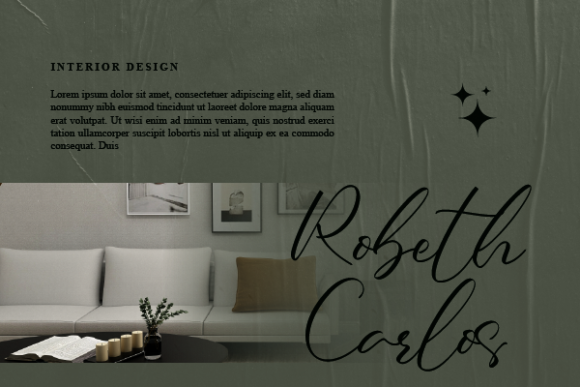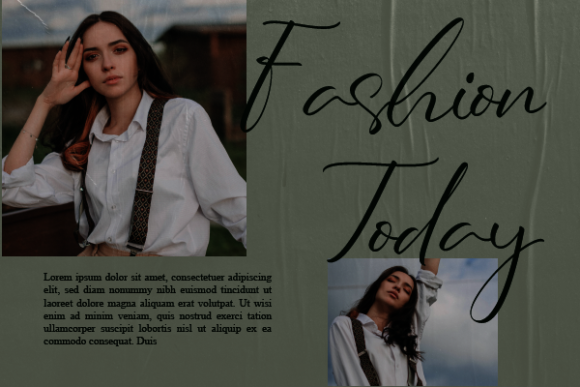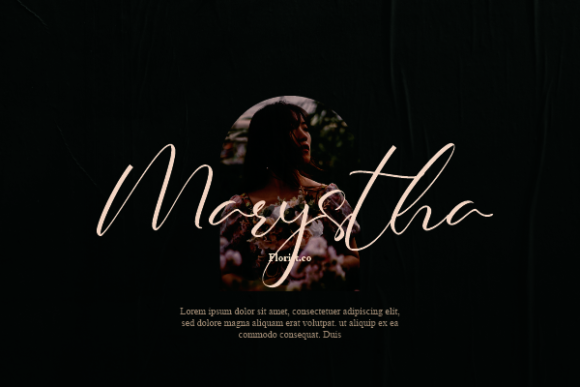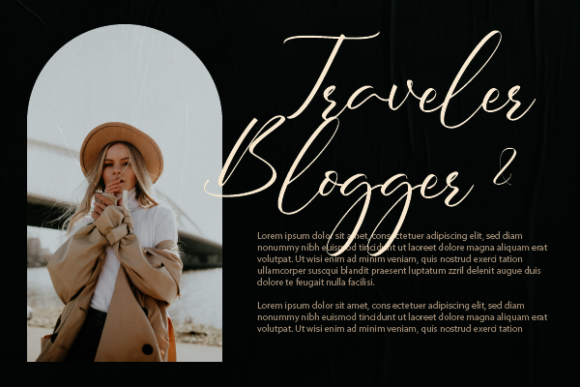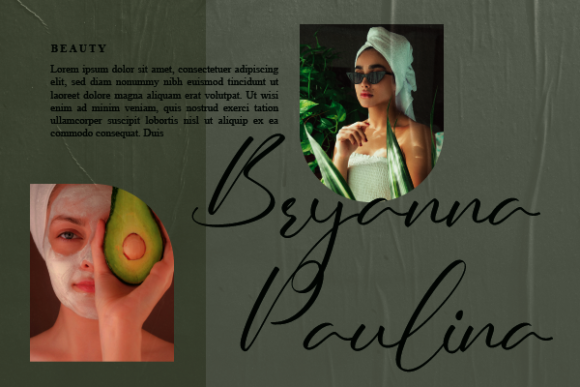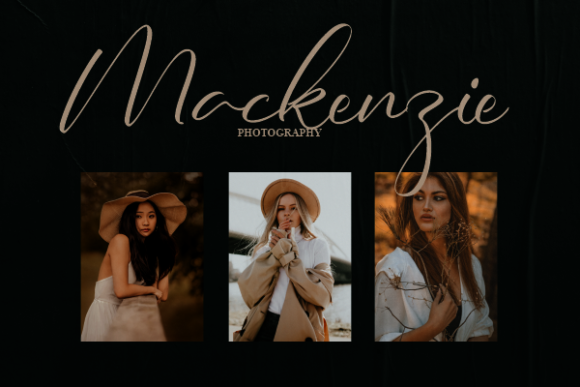
Introduction to Natalie Sutherland Font
Have you ever been working on a creative project, pouring your heart and soul into it, and then – suddenly – you hit a design roadblock? You’ve got a great idea, but it’s just missing that special something to bring it to life. That’s where the perfect font can be a game-changer. For designers, a high-quality font can be the key to unlocking a design’s full potential.
One such font that has captured the hearts of designers is the Natalie Sutherland Font. This elegant, handwritten font is a design treasure trove, boasting beautiful and well-balanced characters that can elevate even the most mundane designs. With its versatility and sophistication, the Natalie Sutherland Font is the perfect addition to any creative project, whether you’re working on a free download or a high-end design resource.
Natalie Sutherland Font
- High-quality design resource for creative projects
- Unique characteristics: elegant script, cursive style, and intricate details
- Perfect for designers, artists, and writers looking for a high-quality, free font for their creative projects
Honest Review: Natalie Sutherland Font
I recently had the opportunity to work with the Natalie Sutherland Font, and I must say it’s been a game-changer for my creative projects. This font is perfect for designers who need a unique and elegant touch in their work.
- ✨ High quality design with a transparent background, making it easy to overlay on any image.
- ✨ Perfect for creating beautiful typography and headlines.
- ⚠️ Limited font styles and weights available, which might not be suitable for complex design projects.
- ⚠️ Some characters may not be compatible with all operating systems, which can cause issues with text formatting.
Overall, I’m really impressed with the Natalie Sutherland Font. It’s a great design resource that can elevate any creative project. While it may have some limitations, its unique style and high quality make it a worthwhile addition to any designer’s toolkit.
Natalie Sutherland Font
The Natalie Sutherland Font is a versatile and elegant design resource that can elevate any creative project. This high-quality font is available for free download, making it an excellent addition to your design toolkit.
Tips for Getting the Most Out of the Natalie Sutherland Font
To get the most out of the Natalie Sutherland Font, experiment with different font sizes, colors, and styles to create unique and eye-catching designs. You can also combine it with other design resources, such as graphics and images, to add depth and interest to your projects.
Common Use Cases for the Natalie Sutherland Font
The Natalie Sutherland Font is ideal for a wide range of creative projects, including wedding invitations, business cards, and social media graphics. Its elegant and sophisticated design makes it perfect for any project that requires a touch of sophistication and refinement.
Alternatives to Natalie Sutherland Font
Alice
Alice is a high-quality, elegant script font perfect for creative projects that require a touch of sophistication. It’s ideal for invitations, wedding stationery, and other formal designs. This font features a transparent background and is available for free download. Compared to Natalie Sutherland Font, Alice has a more refined and polished look.
Great Vibes is a beautiful, handwritten font that’s perfect for adding a personal touch to your design. It’s ideal for social media graphics, blog posts, and other creative content. This font features a high-quality design and a transparent background, making it a great alternative to Natalie Sutherland Font. Great Vibes is more playful and casual than Natalie Sutherland Font, making it perfect for modern and trendy designs.
Is the Natalie Sutherland Font suitable for high-resolution designs?
Yes, the Natalie Sutherland Font is designed to be highly legible and clear, even at high resolutions. It is an excellent choice for designers who need a high-quality font for their creative project, whether it’s for print or digital media.